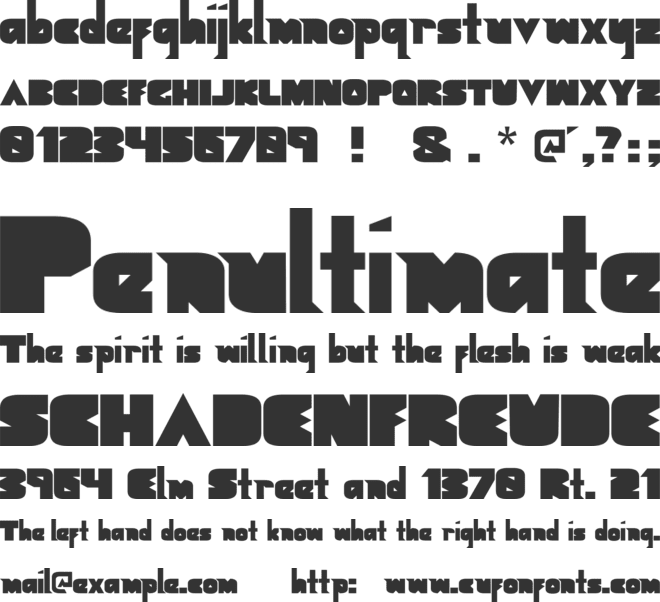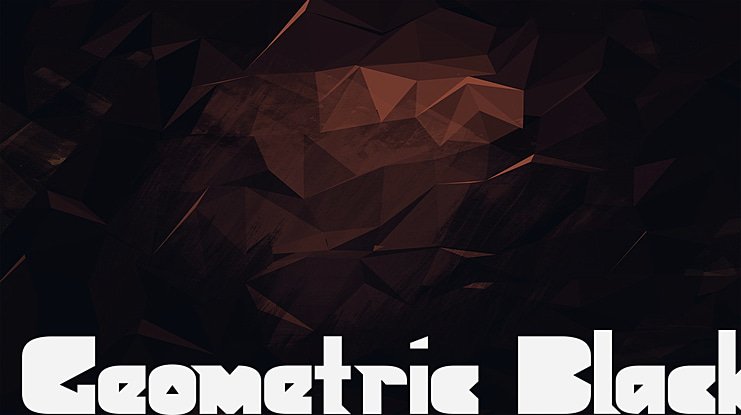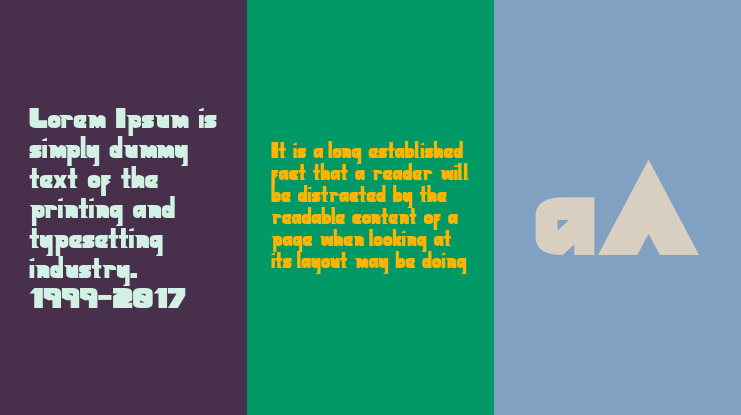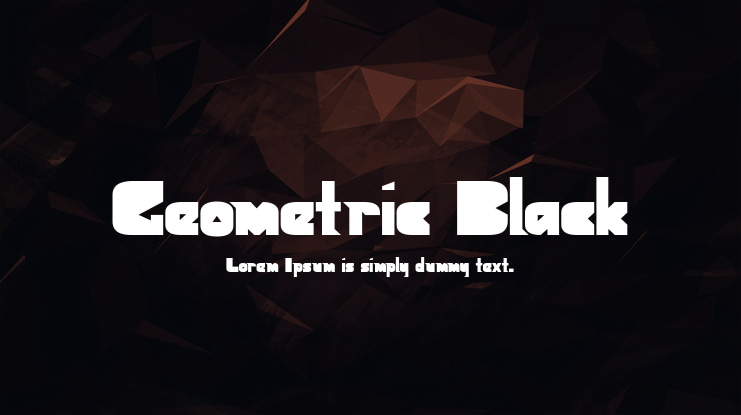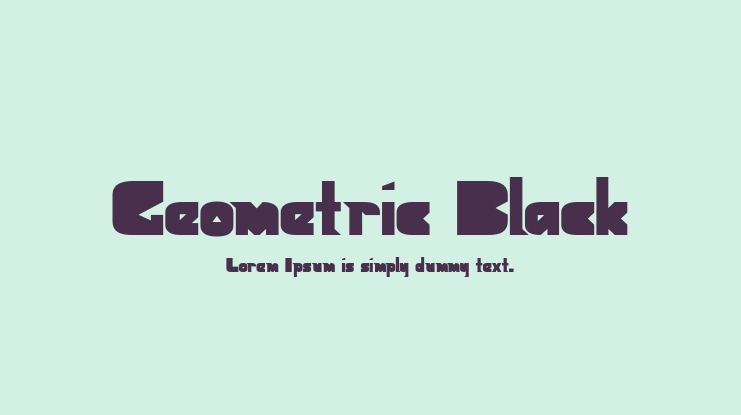
Geometric Black Font
Peter Ovens-Brown
Geometric Black is a heavy sans serif font designed for screen. Uses have included promotional musical theatre cards, and a russian propaganda style introduction to V for Vendetta. To view the introduction video to V for Vedetta, please visit: http://www.youtube.com/watch?v=-q_MQhDmHn4